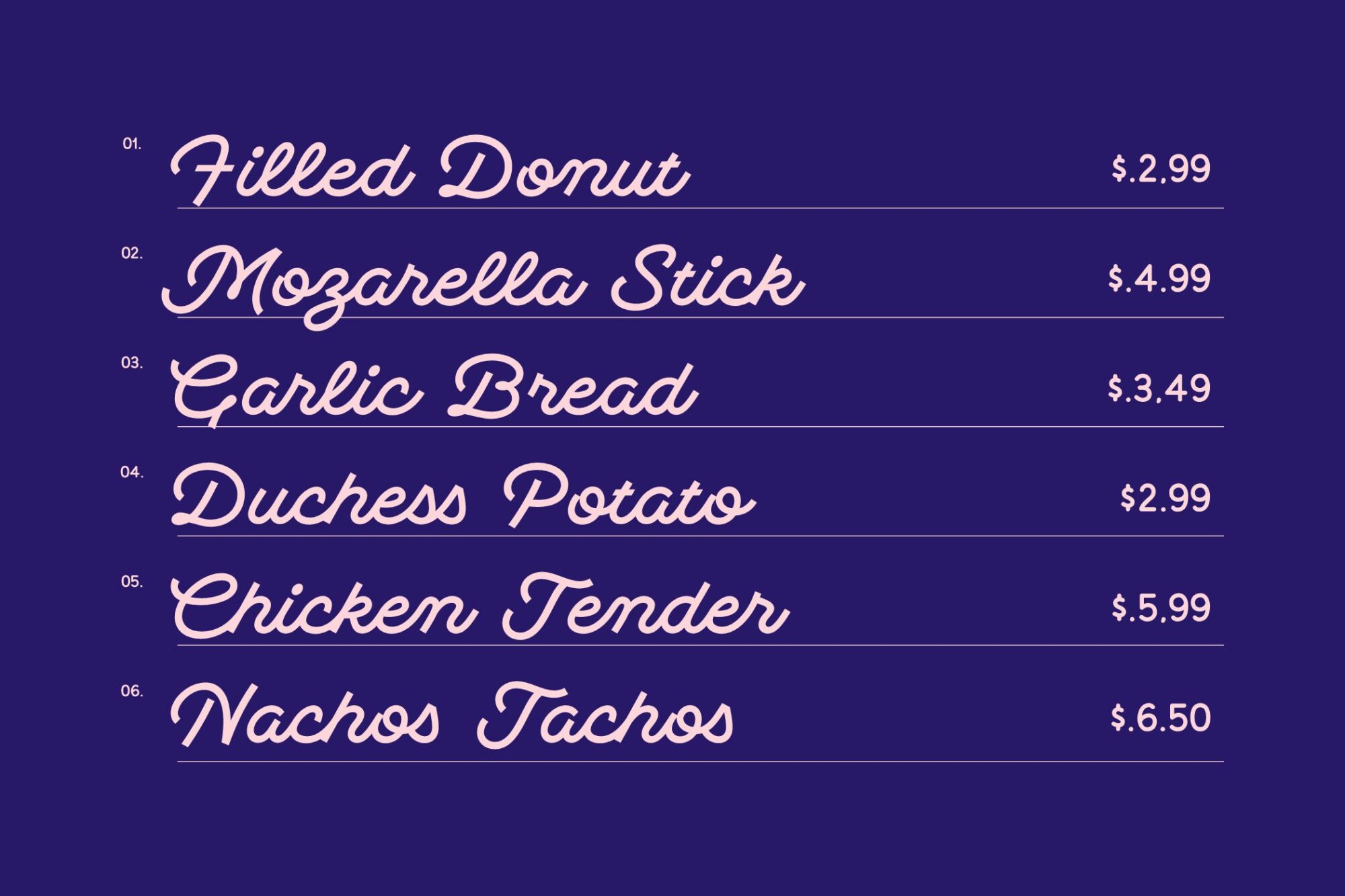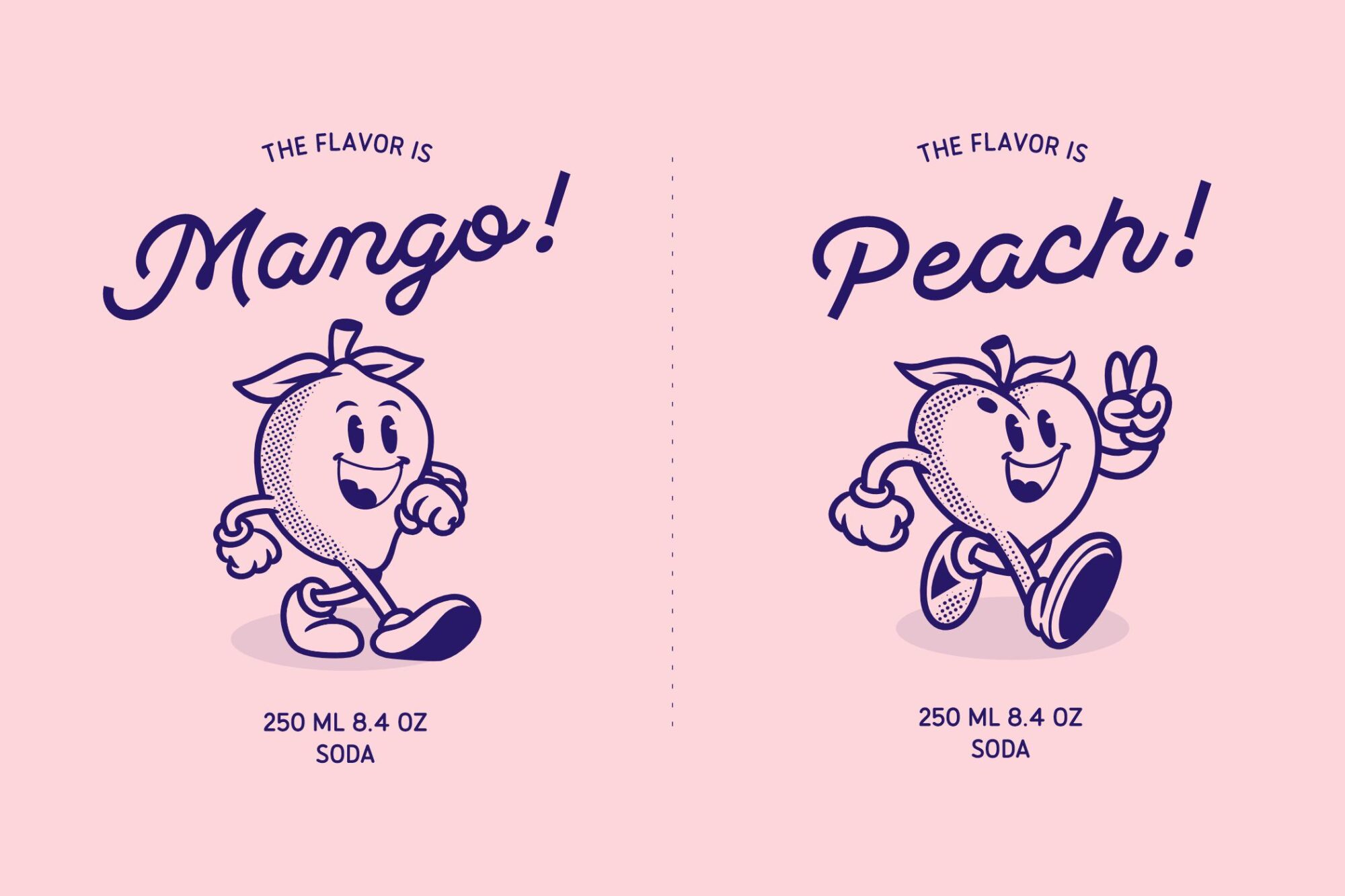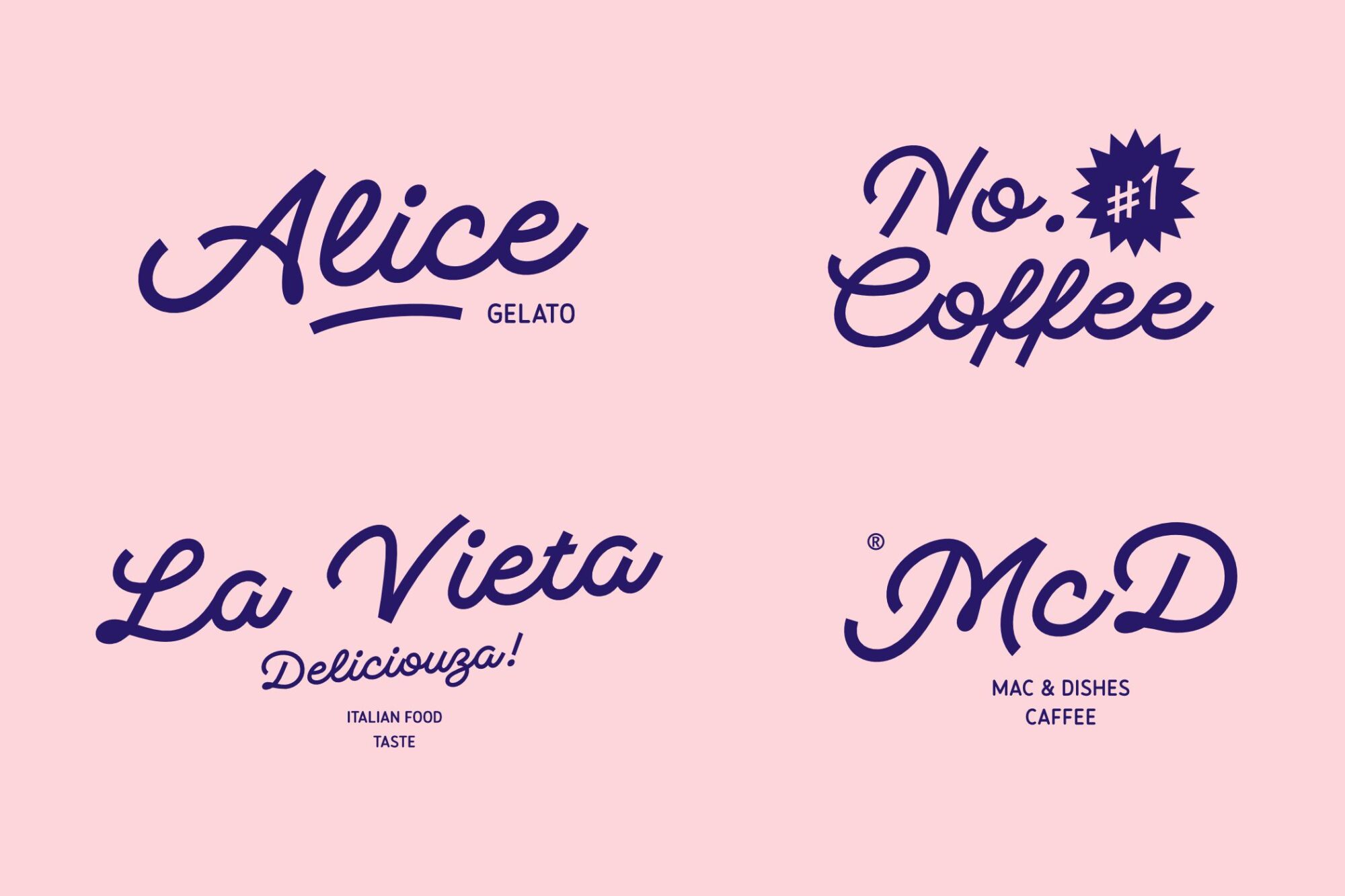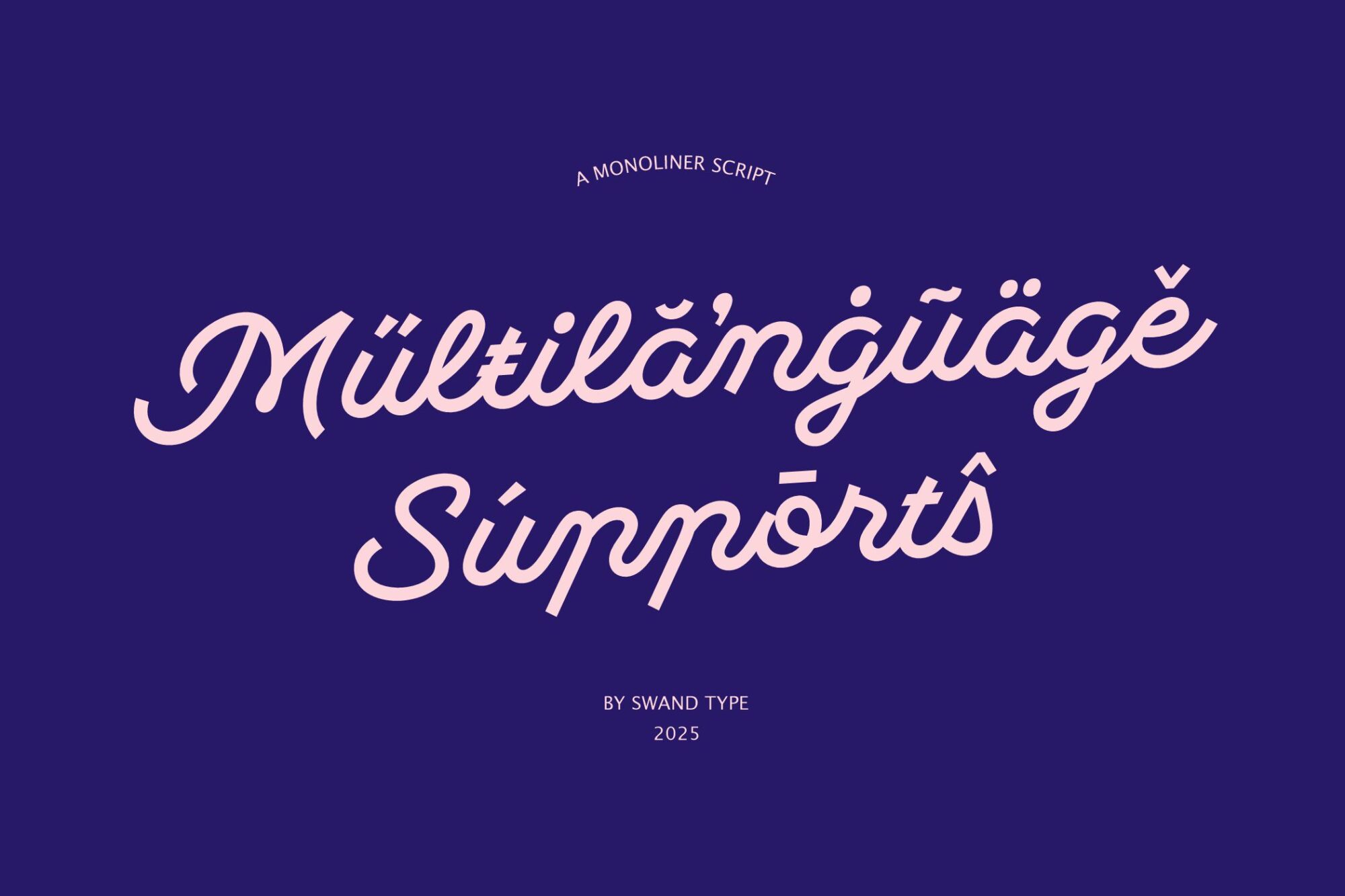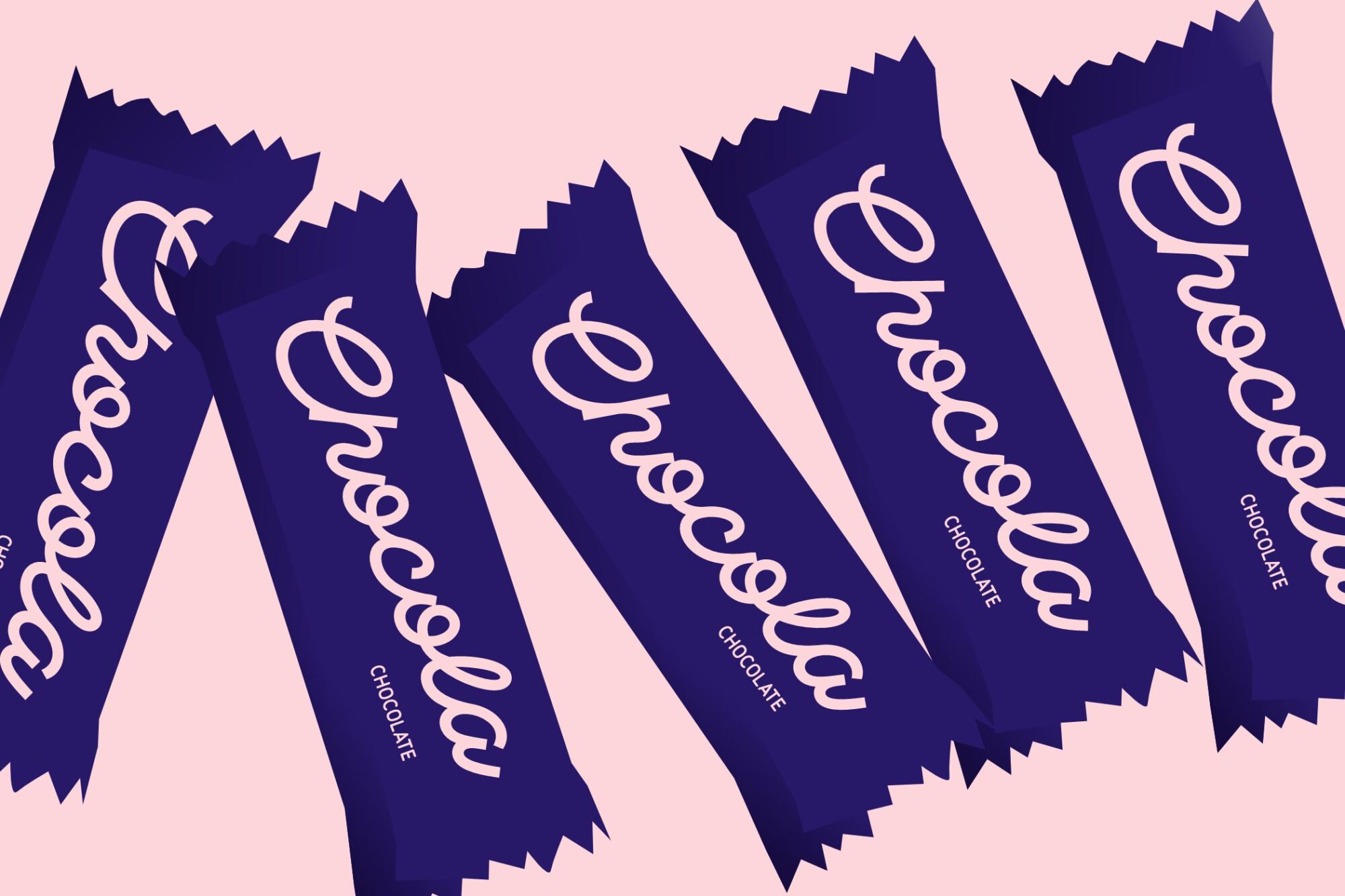
Monoliner
Meet Monoliner Script Font. A monoline font designed by Michola Putra Siswandy (Swand Type). This font stands out for its clean, consistent strokes and meticulous attention to detail, making it an essential choice for modern typography enthusiasts. Monoliner Script is perfect for logo design, branding, clothing design, posters, headline and so much more! My goal with this font was to create an easily legible script font which would work for a wide variety of purposes.
Numeral & Punctuation
Contextual Alternate
Multilingual Support